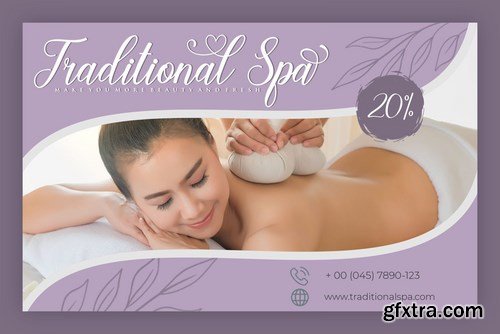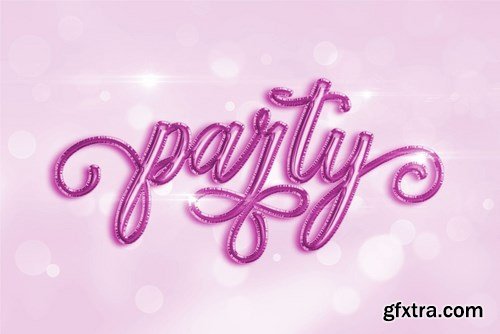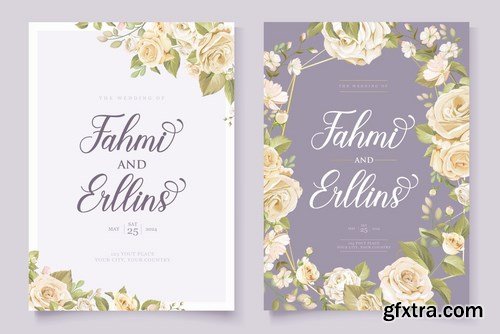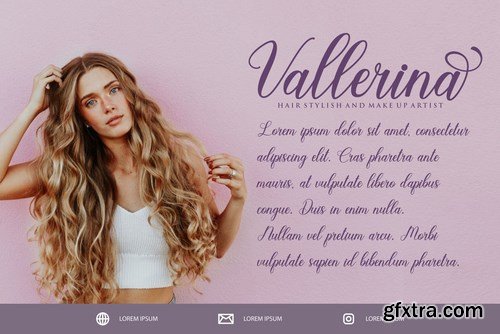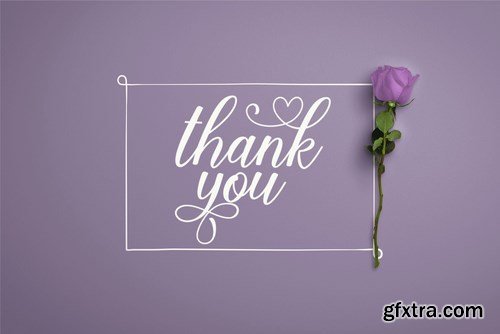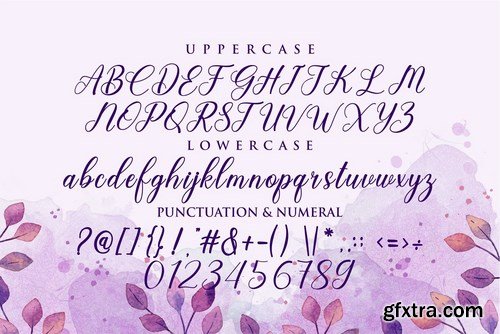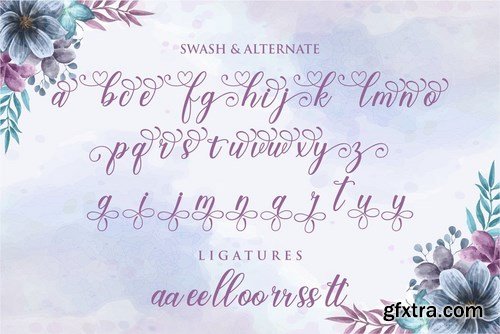
Garden Party is a lovely modern calligraphy that bring luxury feel. The natural hand writing script is suitable for you who needs a typeface for headline, logotype, apparel,wedding invitations, branding, packaging, advertising,watermark, etc. This typeface is comes in uppercase, lowercase, punctuations, symbols & numerals, stylistic set alternate, ligatures, etc also support multilingual.